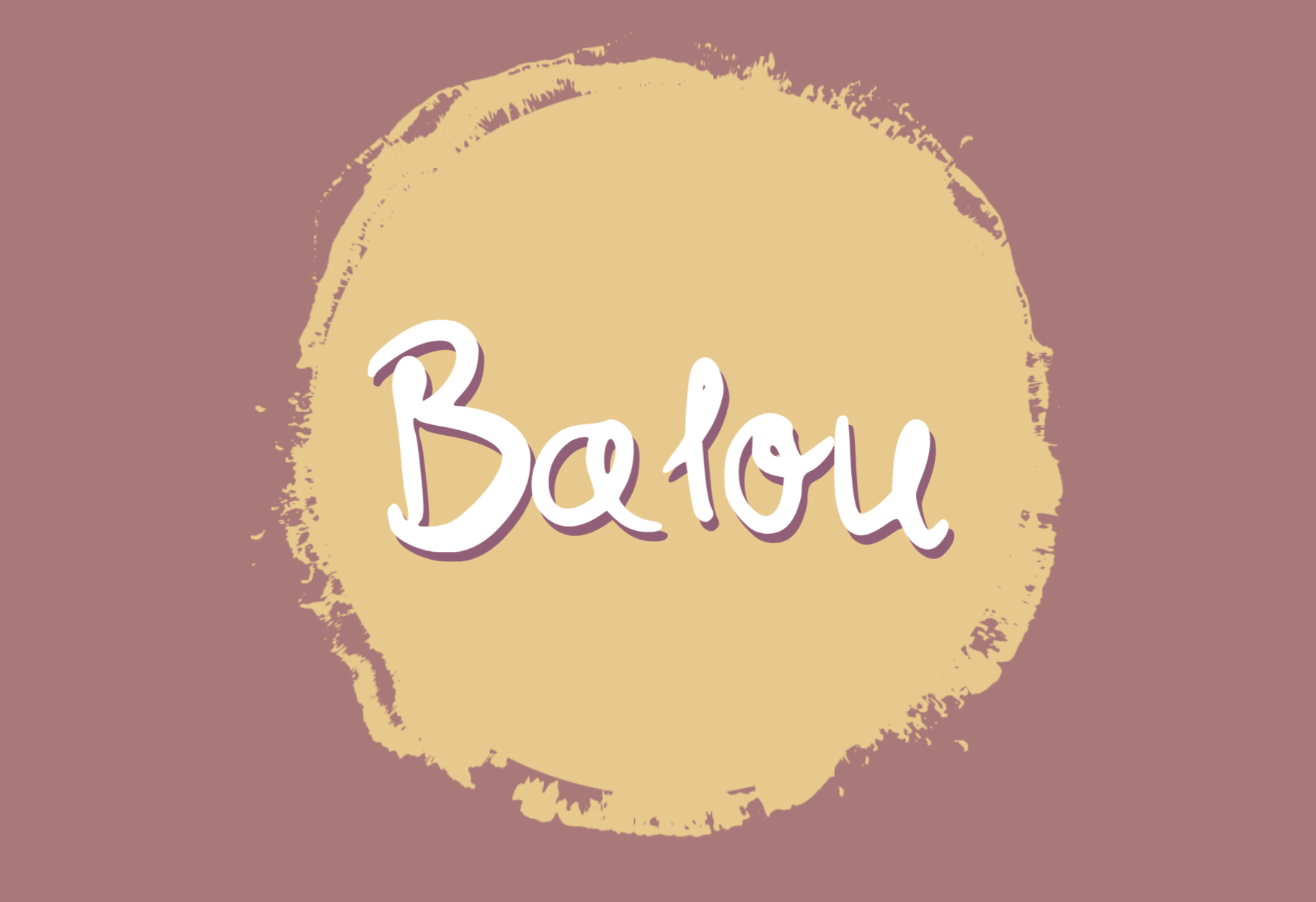
Balou Handwritten Font
Balou is a handwritten font. Ideal for logos, handwritten quotes, product packaging, header, poster, merchandise, social media & greeting cards.